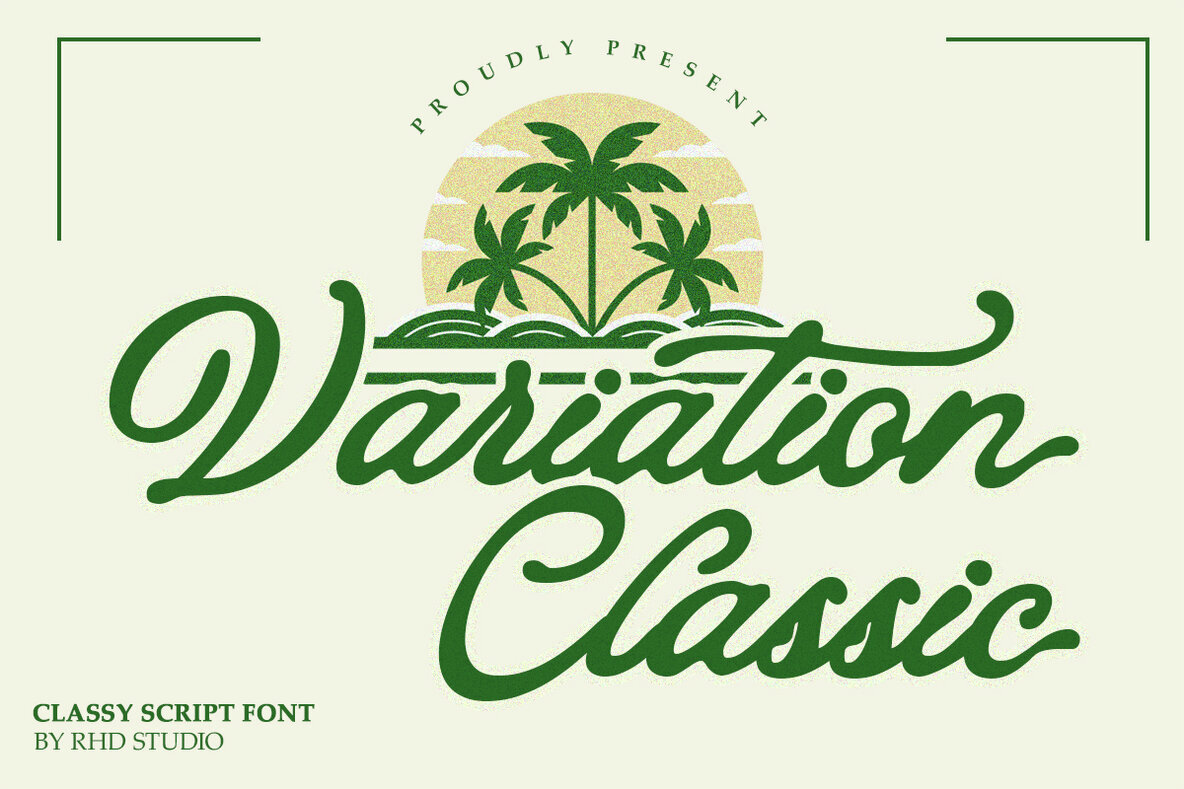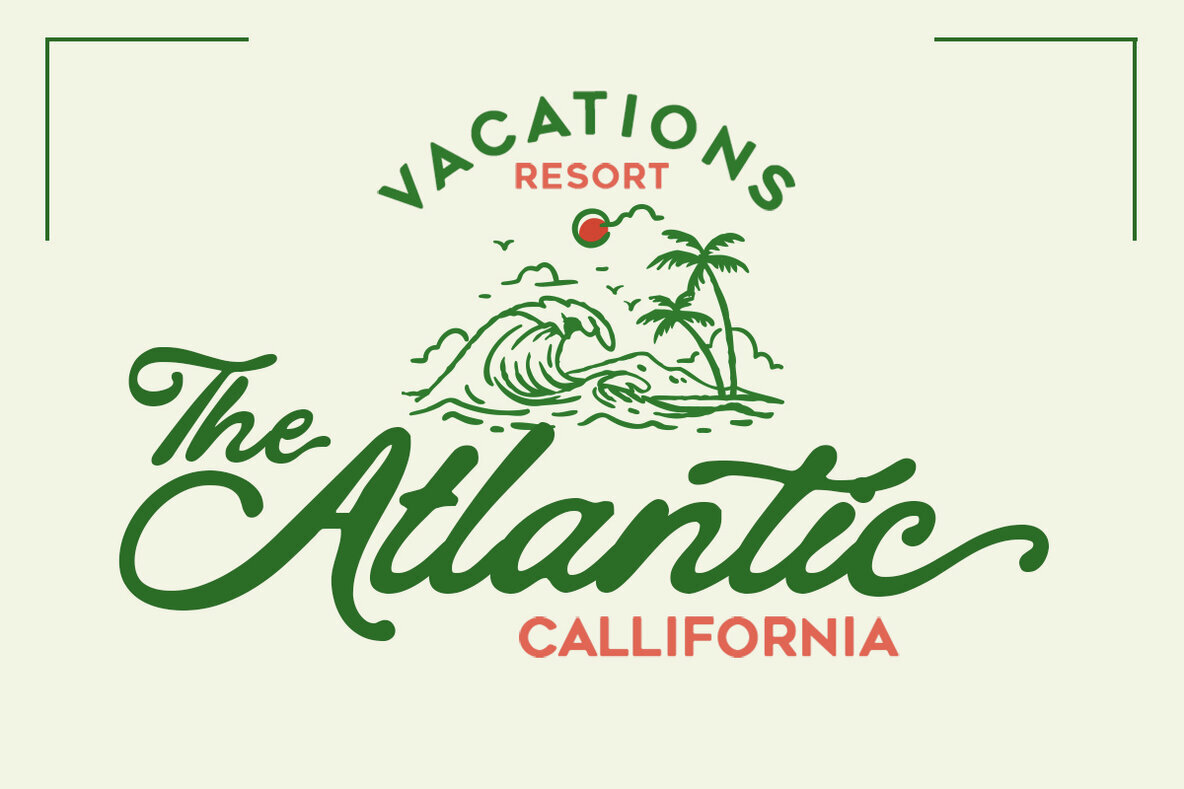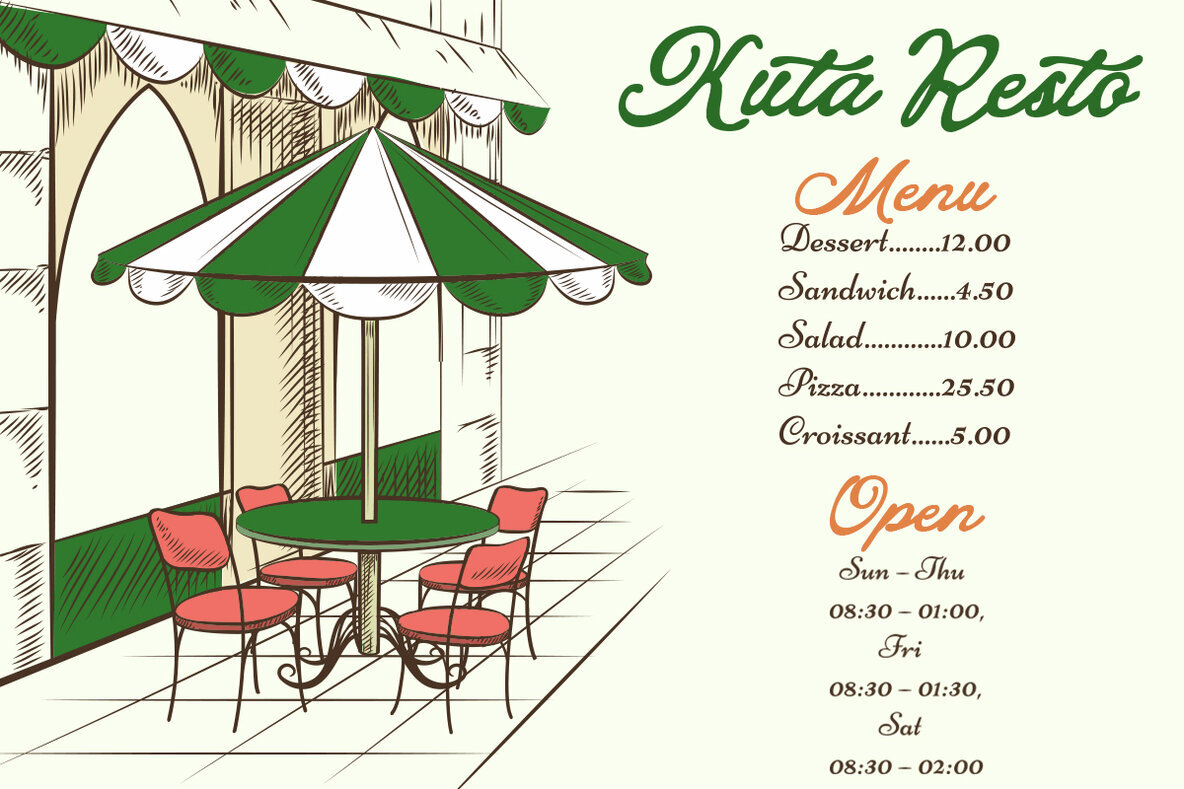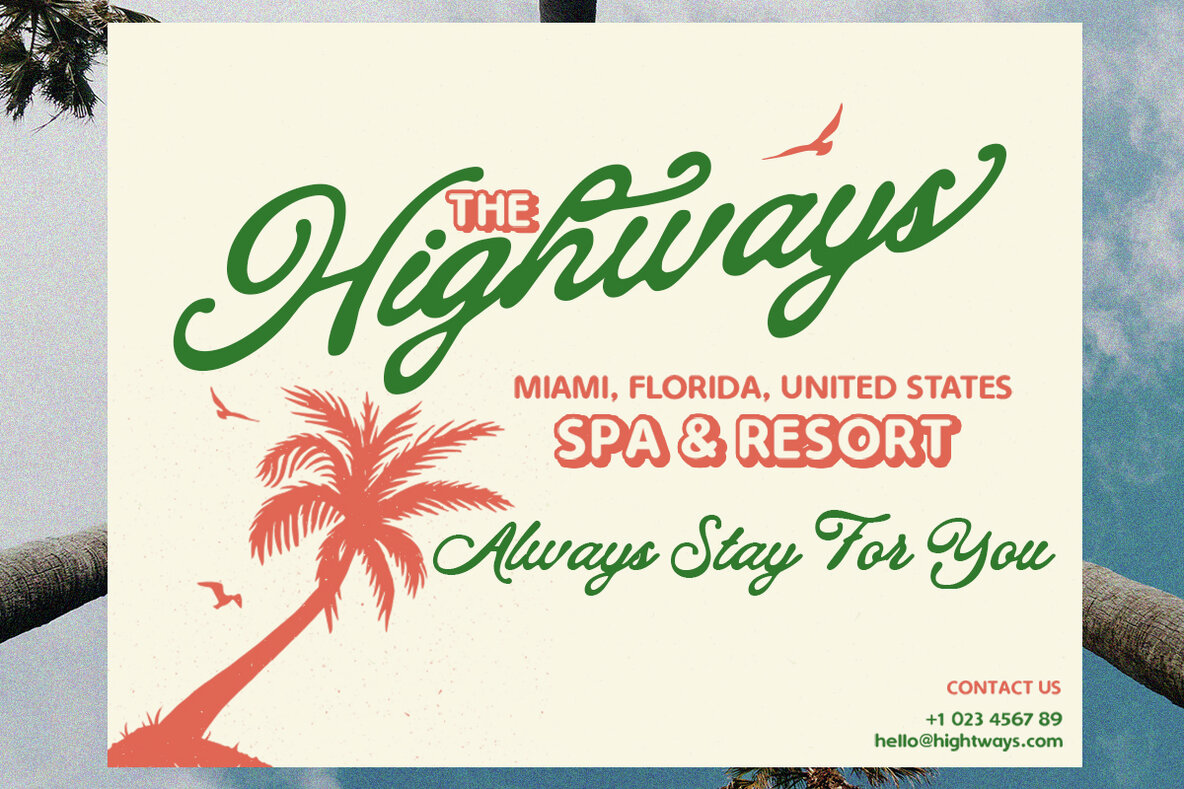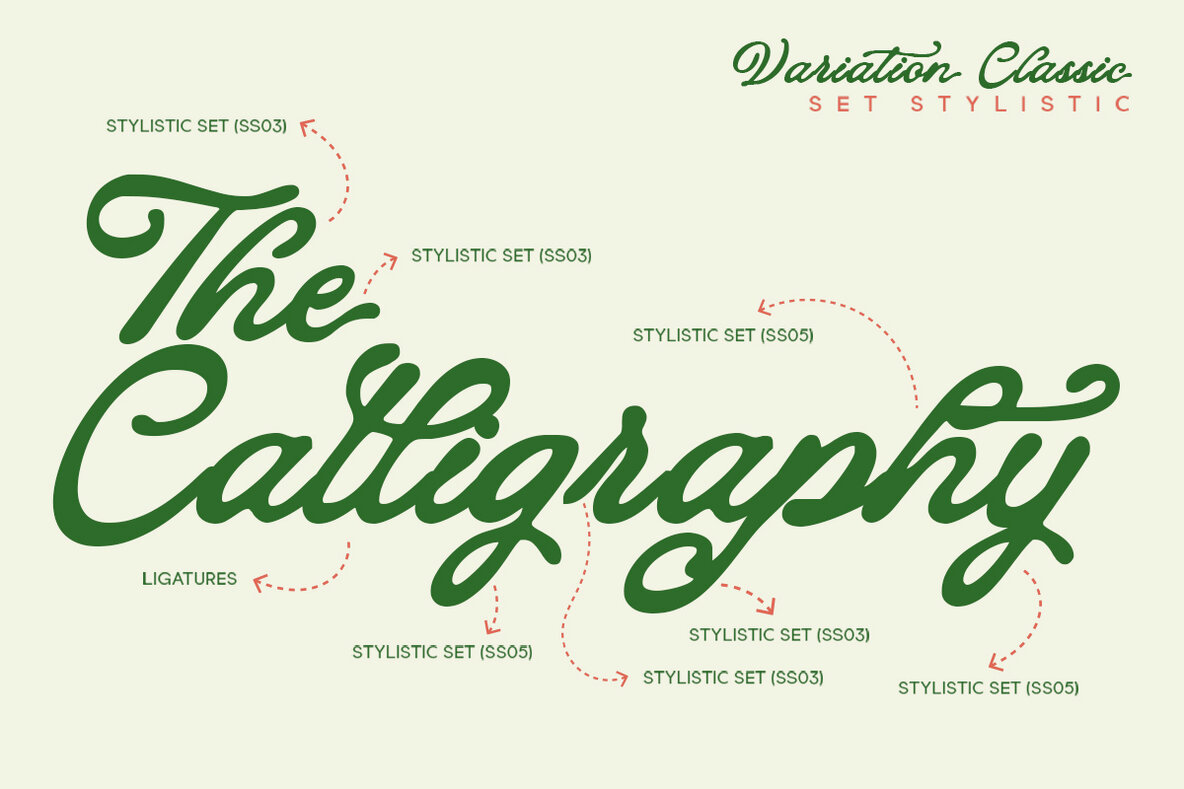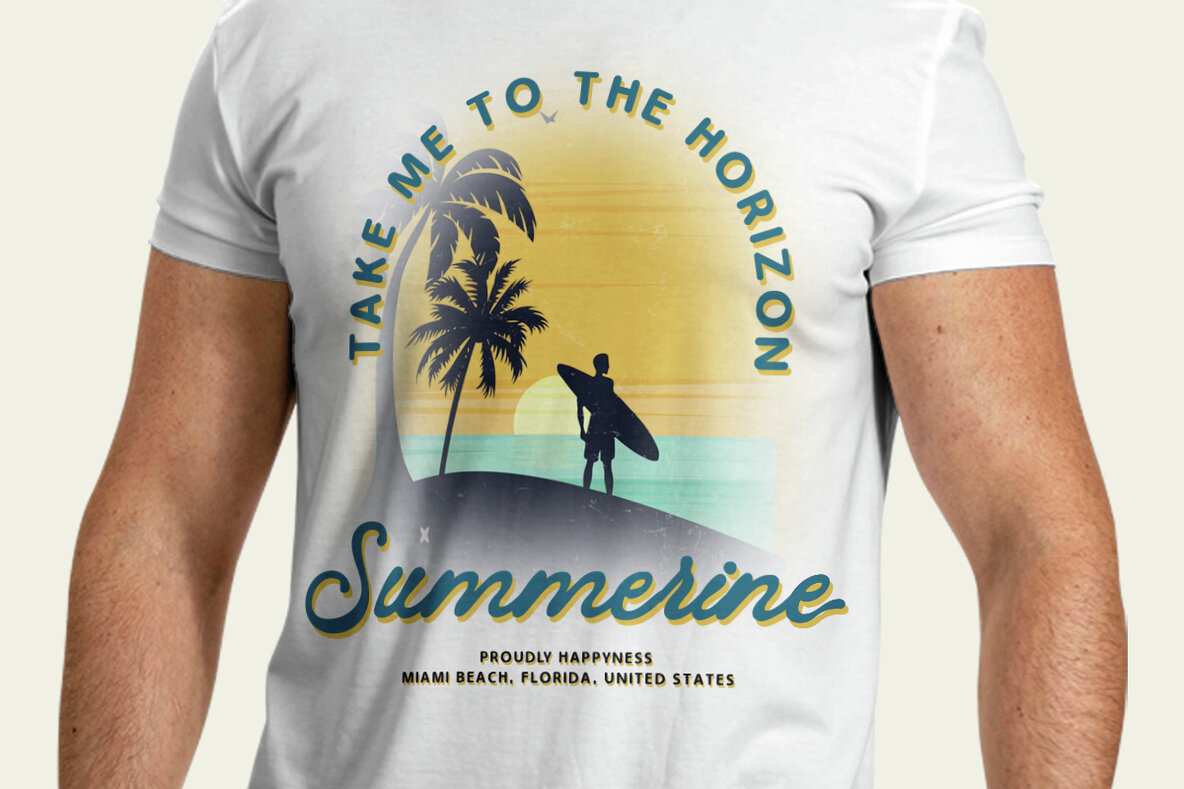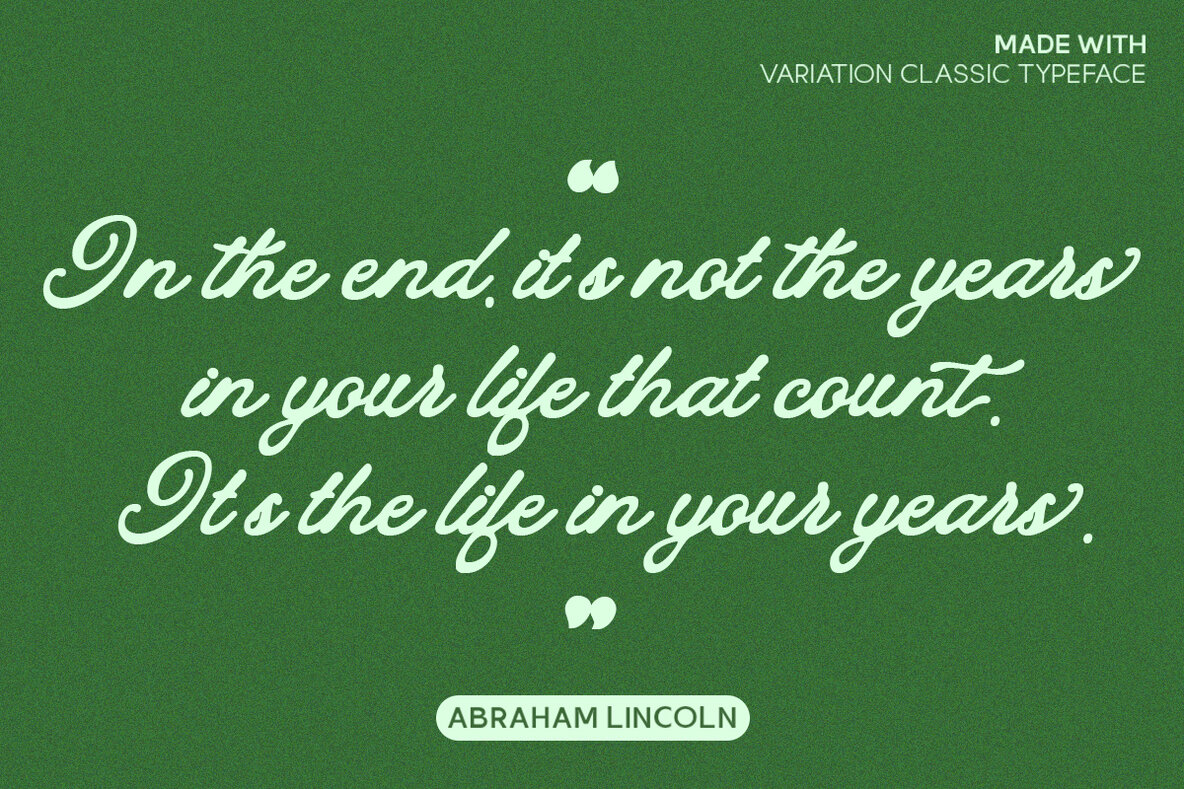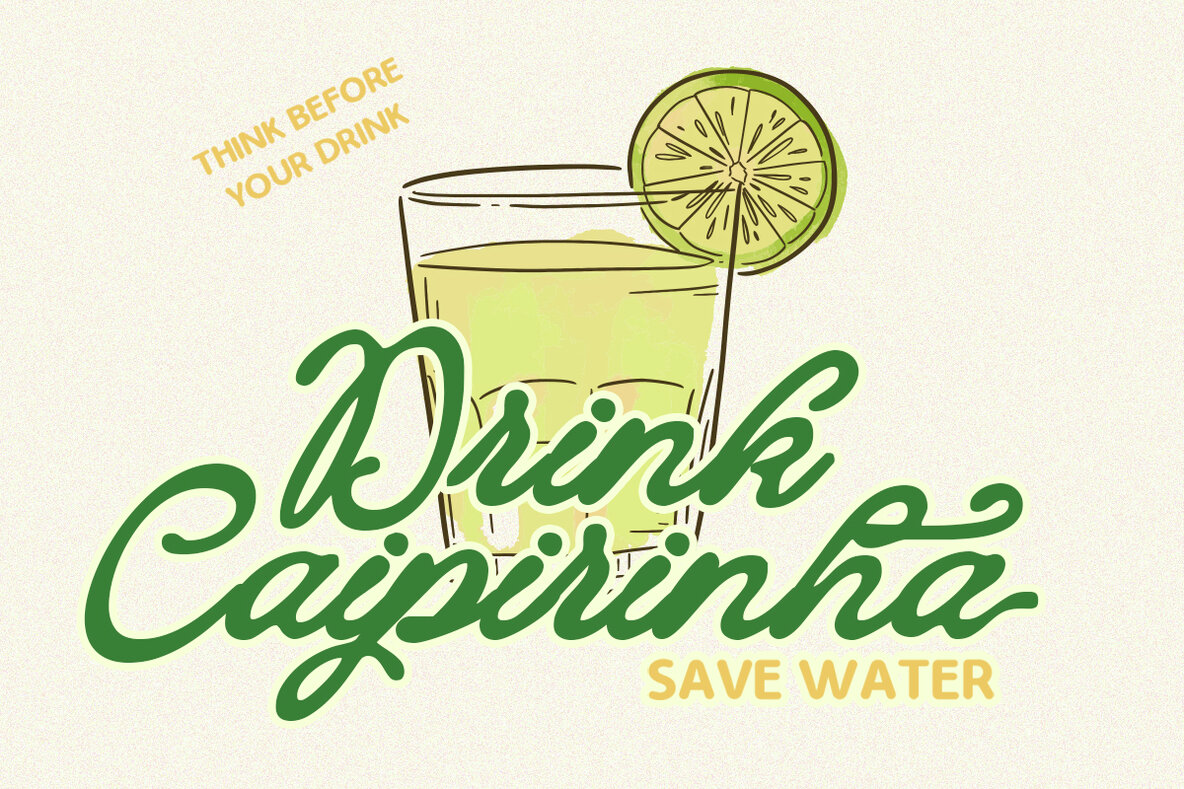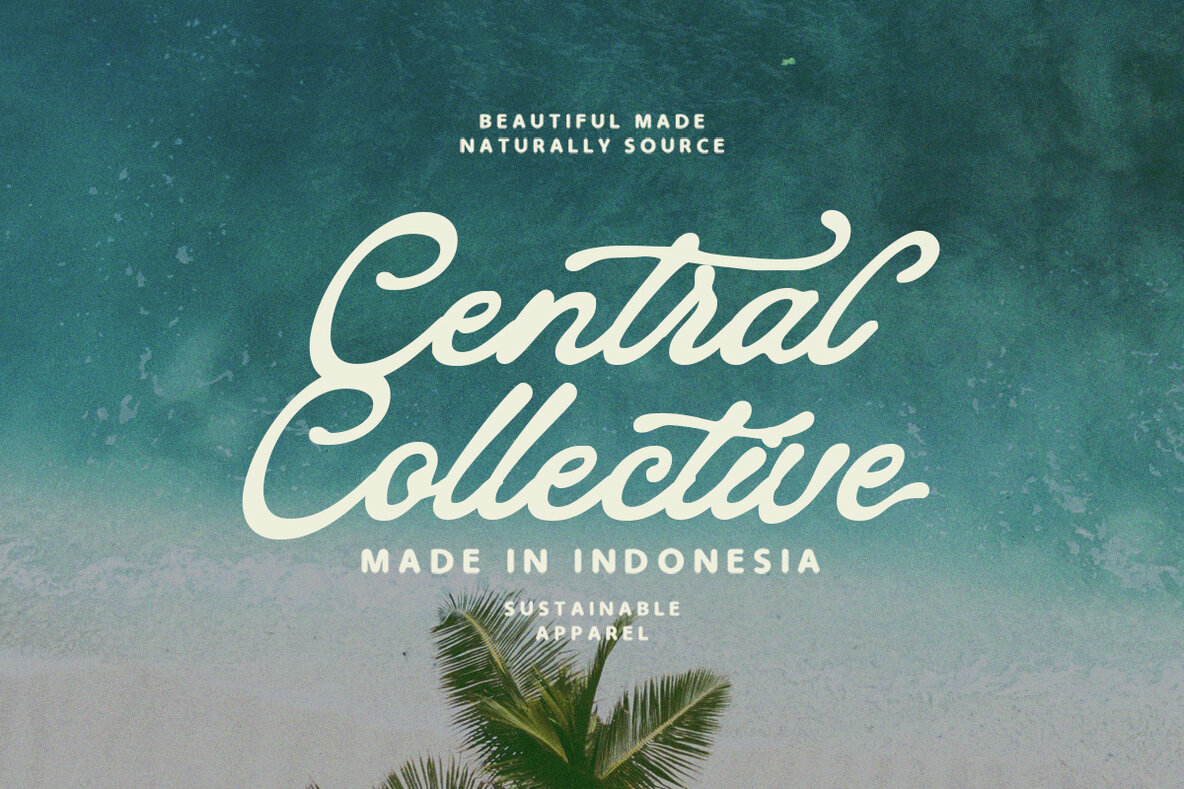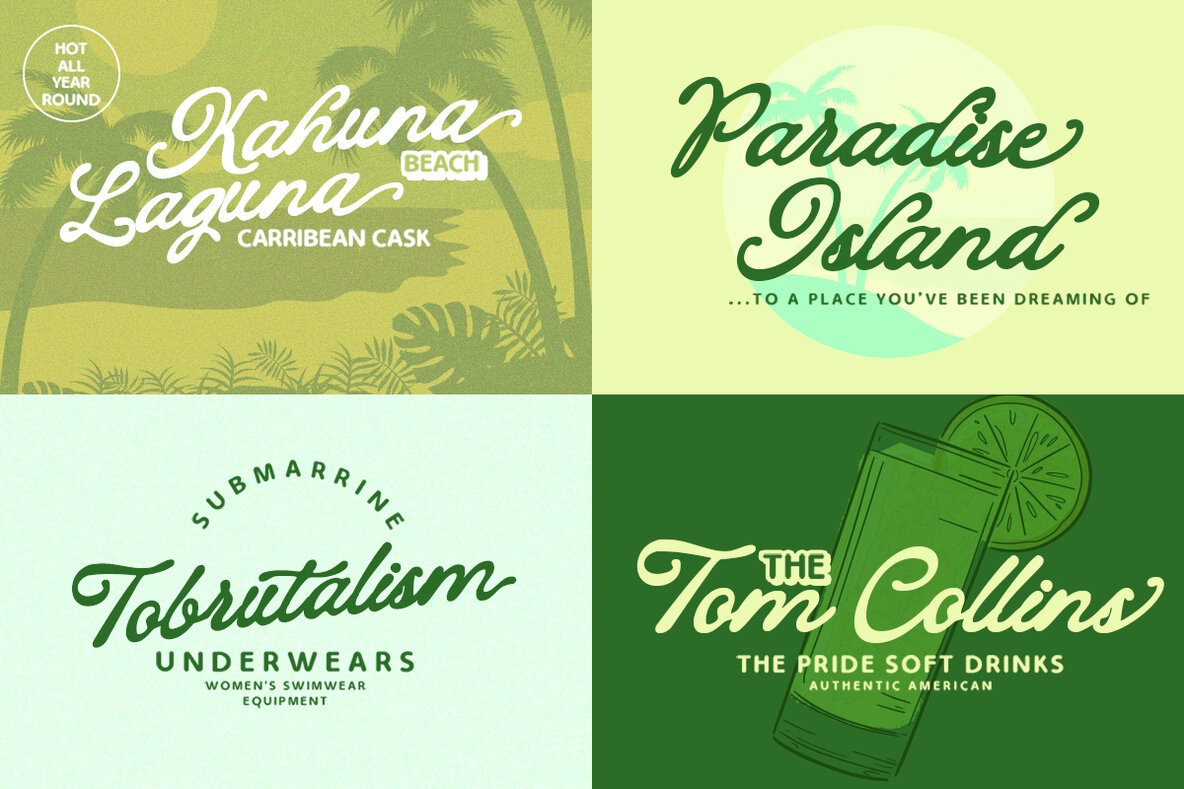
Variation Classic Font
Variation Classic
Infusing projects with the essence of classic handwriting, Variation Classic presents a modern take on a timeless style. A versatile script font, it elevates your design work with over 90 stylistic sets, contextual alternatives, and an array of ligatures. With comprehensive multi-language support, this font enhances the visual appeal, making every project uniquely attractive. Ideal for logotypes, printed quotes, invitations, cards, product packaging, headers, letterheads, apparel, web design, magazines, and books, Variation Classic seamlessly integrates into any creative endeavor. Features:Variation Classic: Timeless Script With Handwritten Elegance